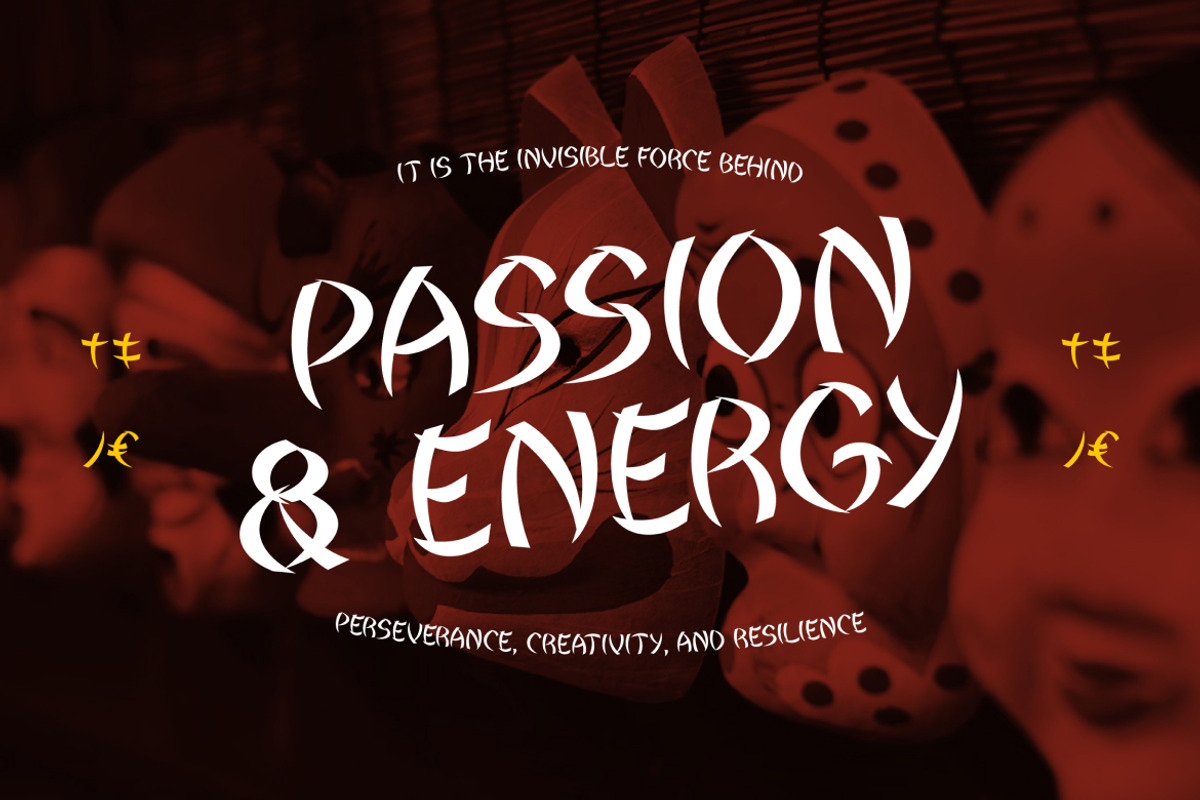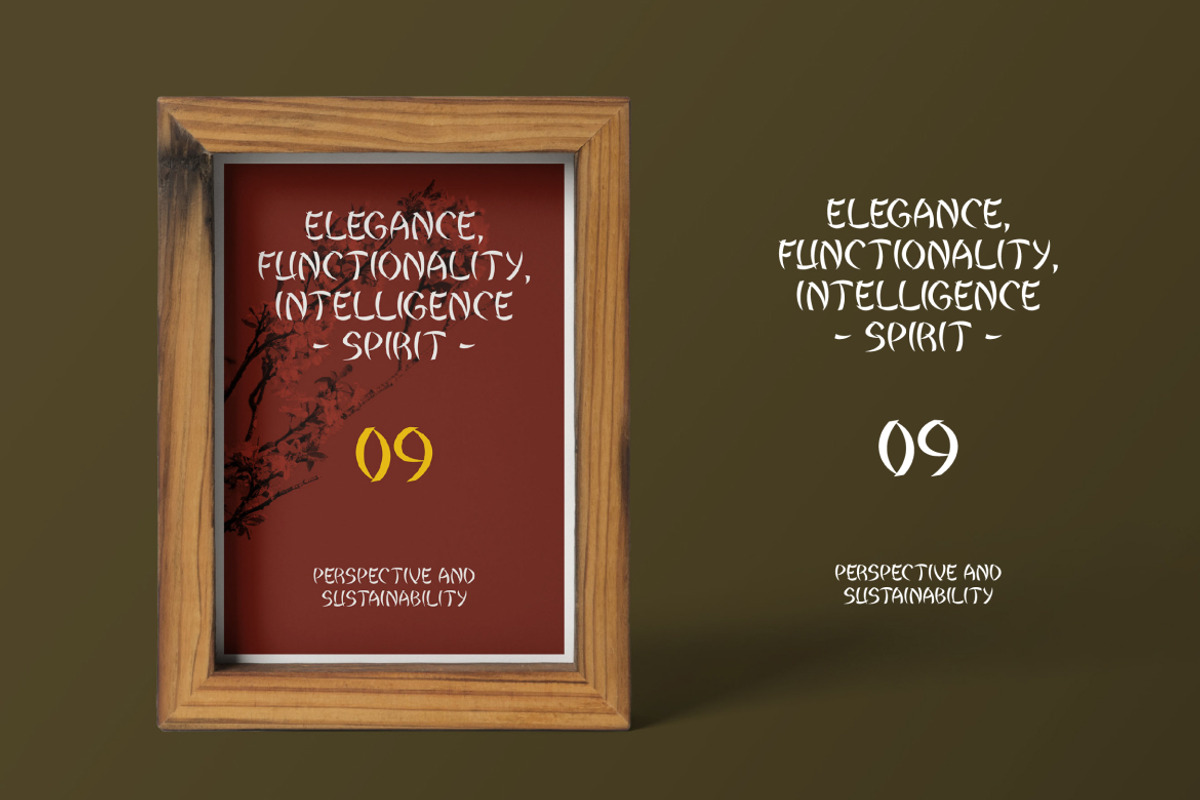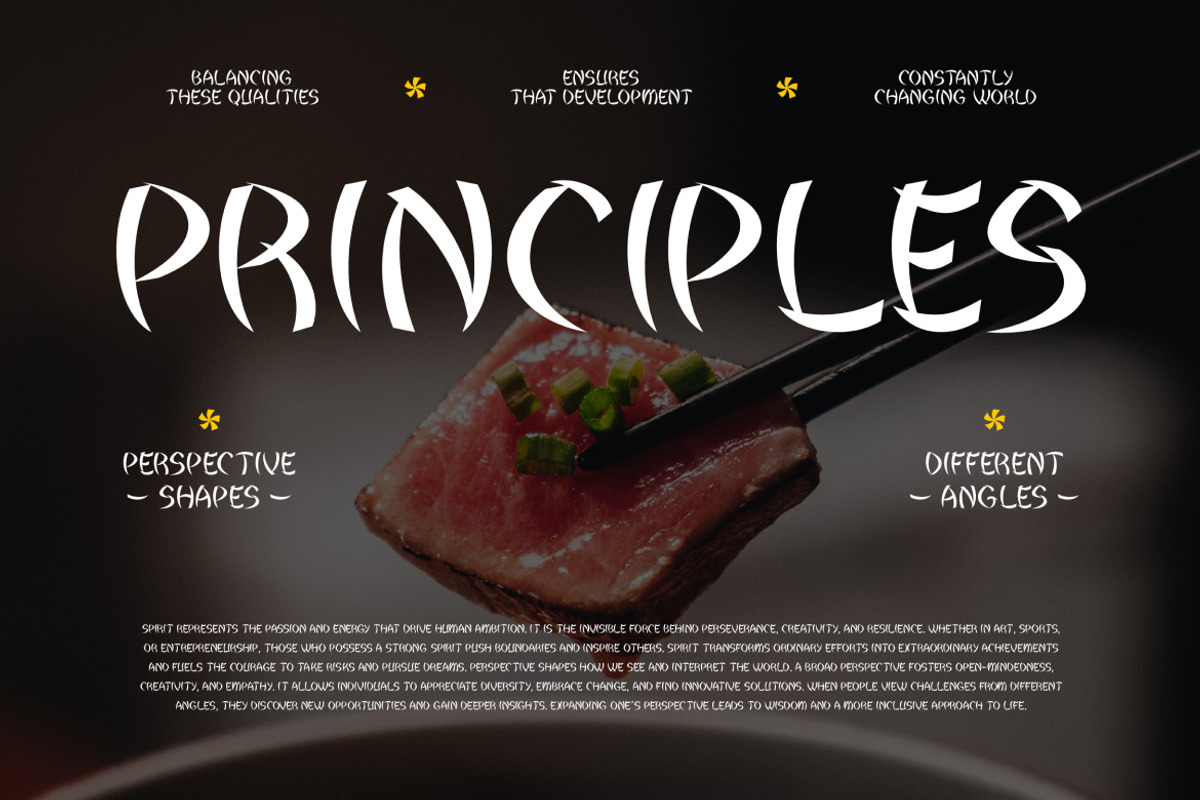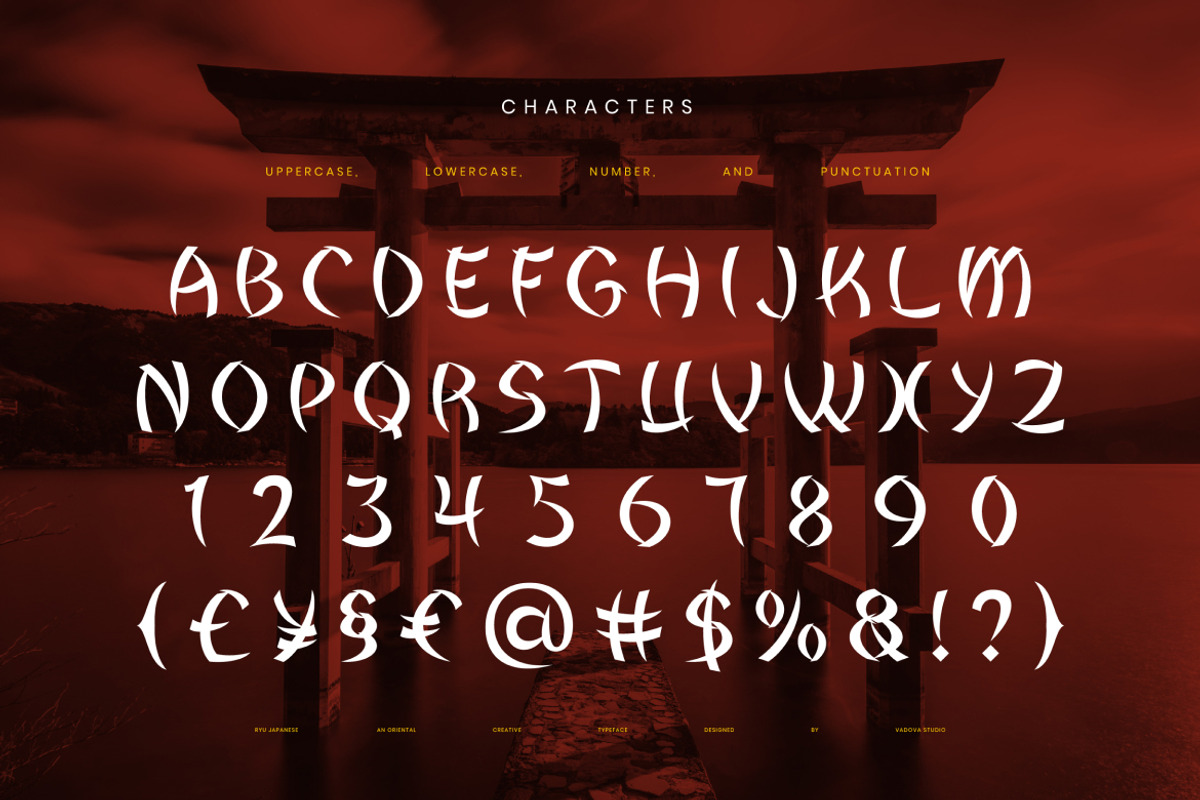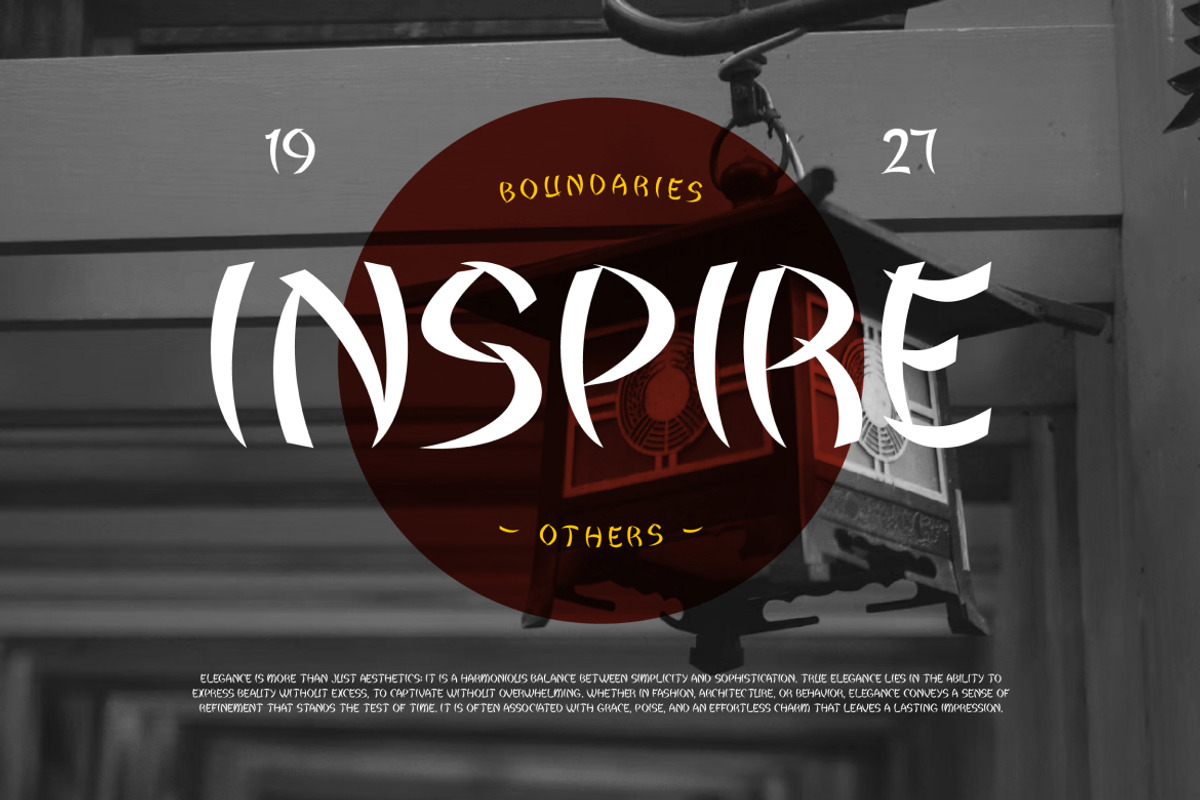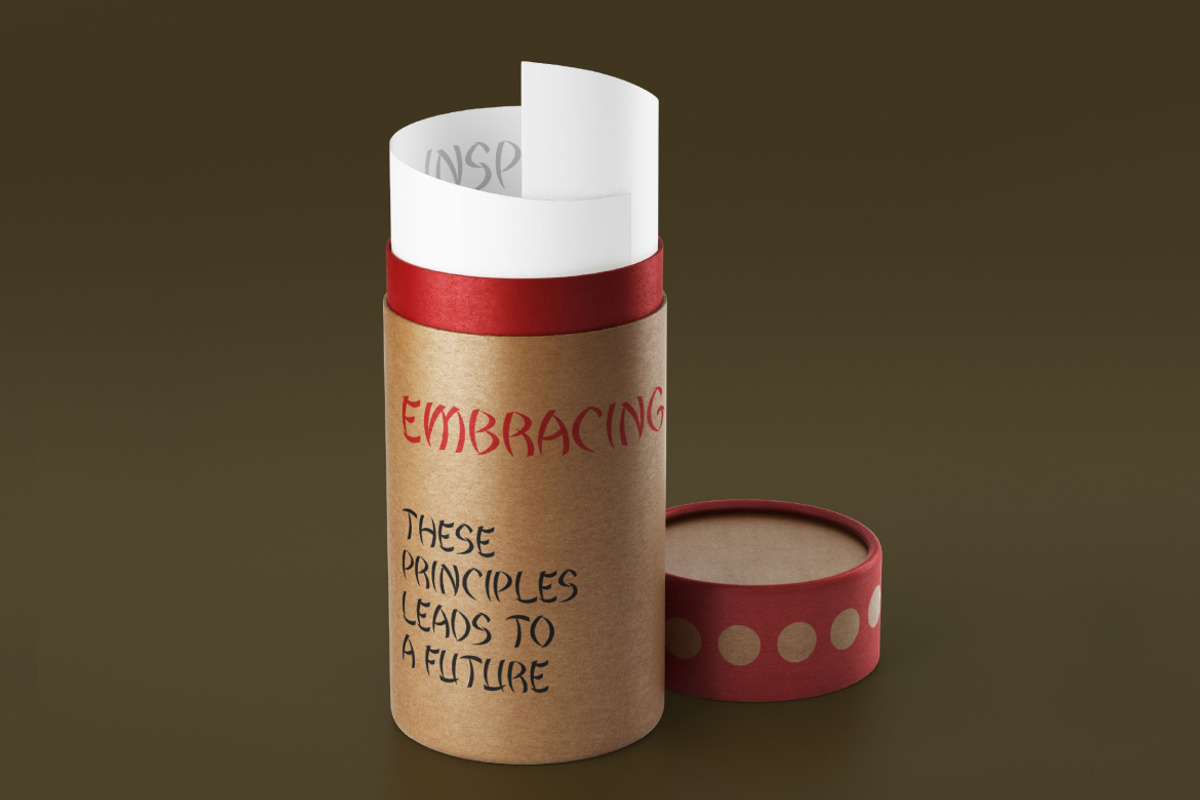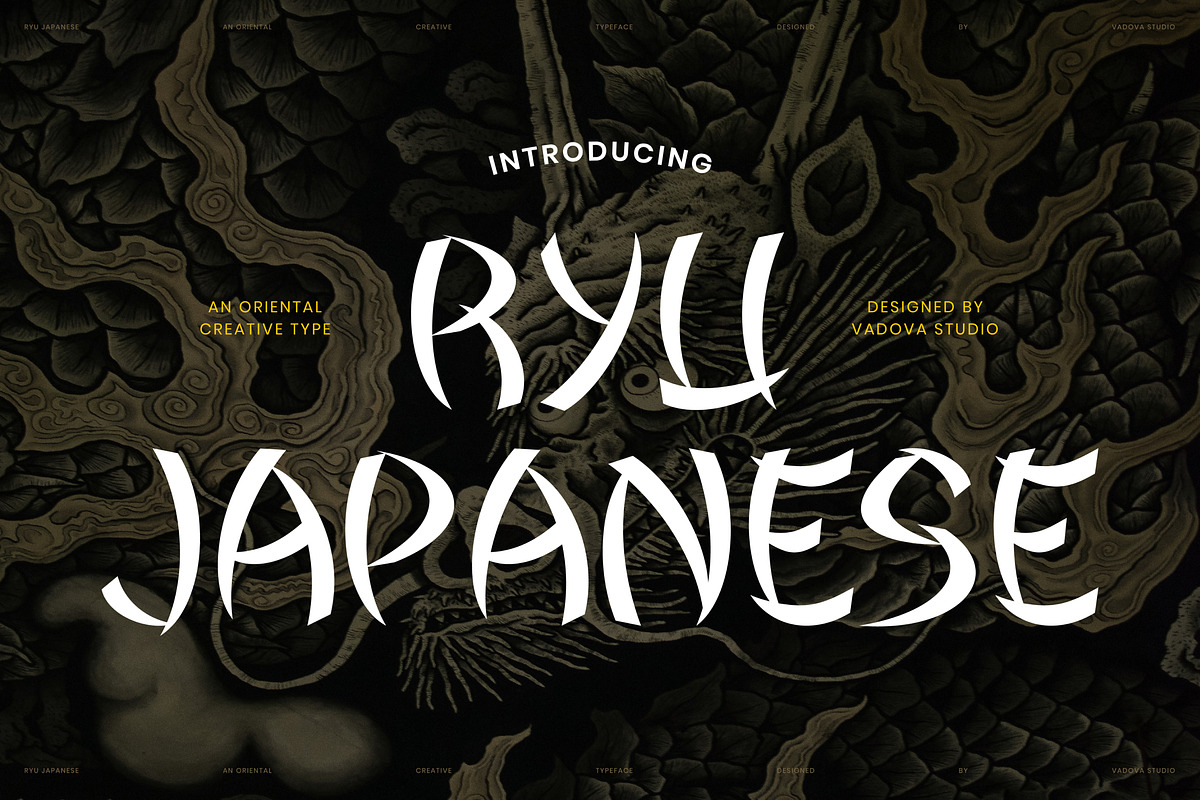
Ryu Japanese–Oriental Display Serif
Ryu Japanese is an expressive oriental display serif font inspired by the elegant strength of traditional Japanese calligraphy. Designed by Vadova Studio, this typeface blends the fluidity of brush strokes with the discipline of serif structure — evoking both power and grace in every letterform. Its sculpted curves and dynamic motion reflect the spirit of Asian artistry and samurai precision, making it perfect for designs that seek cultural depth and bold visual identity.
Each glyph carries a sense of rhythm and movement, creating a captivating balance between modern design and heritage. The strokes are sharp yet organic, echoing ink brush textures while maintaining clarity in print and digital applications. Ryu Japanese adds emotional and visual storytelling to your design — a bridge between ancient tradition and modern expression.
Ideal for headlines, posters, film titles, restaurant branding, or packaging that celebrates oriental aesthetics, Ryu Japanese stands as a display font full of personality, energy, and artistic authenticity.
- Uppercase display serif with Japanese brush influence
- Inspired by traditional calligraphy rhythm and oriental aesthetics
- Expressive curves and sharp strokes that blend strength with elegance
- Perfect for bold titles, branding, posters, and cultural visuals
- Designed to capture the fusion of heritage and contemporary design
- Complete set of uppercase, numerals, and punctuation
- Carefully tuned kerning and precise vector outlines
- Performs beautifully across print, web, and cinematic compositions
- Harmonious contrast of artistic flow and visual precision
Relevance and Use Cases
Relevance and Use Cases is perfect for Japanese-themed branding, movie titles, poster designs, martial arts promotions, Asian restaurants, cultural exhibitions, packaging design, fashion editorials, travel campaigns, and traditional product labels. It resonates with designers seeking a typeface that embodies heritage, elegance, and motion.